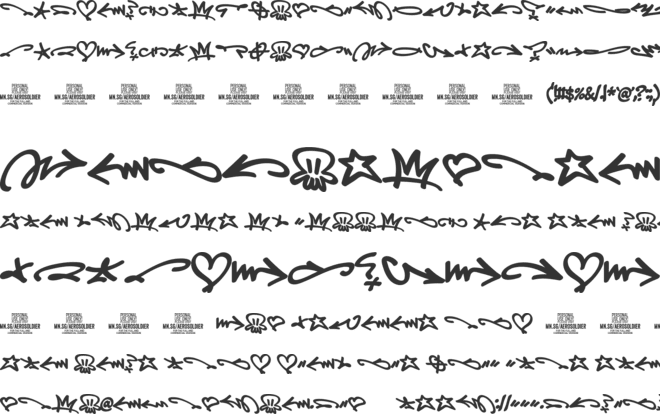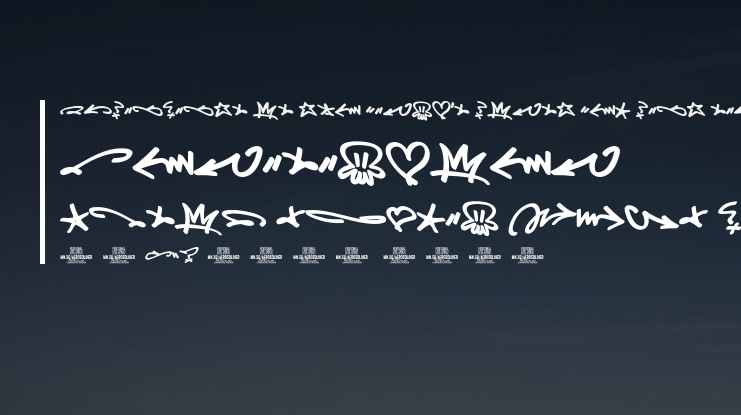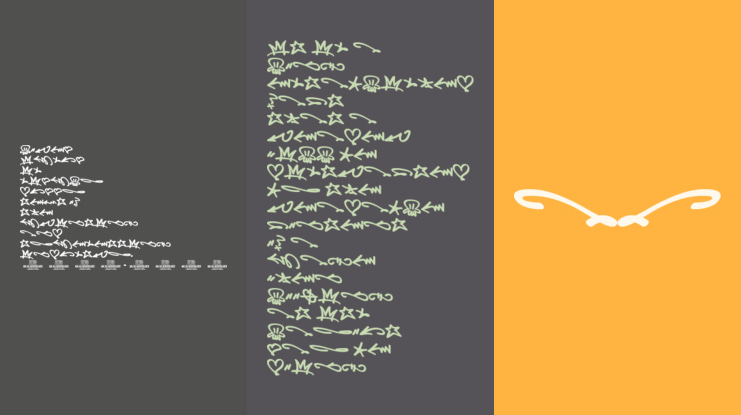
Aerosoldier Basic Symbol PERS Font Family
NOTE: This font is for PERSONAL USE ONLY!To purchase a commercial license, visit:https://www.mansgreback.com/product/aerosoldierAerosoldier is a bold and raw graffiti tag typeface, bursting with energy and streetwise attitude. With twelve distinct stylesranging from clean to drippy and sprayedAerosoldier captures the layered textures and intensity of graffiti culture. For questions, please visit https://mansgreback.com/faq